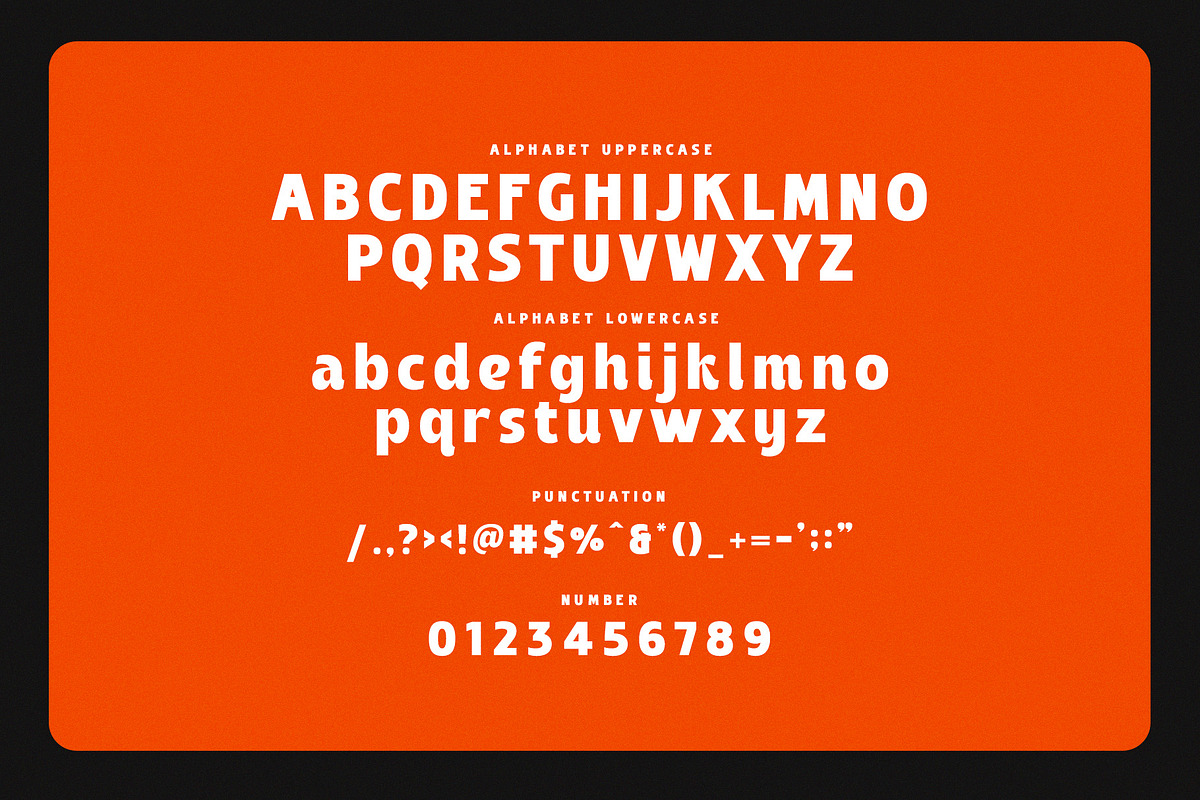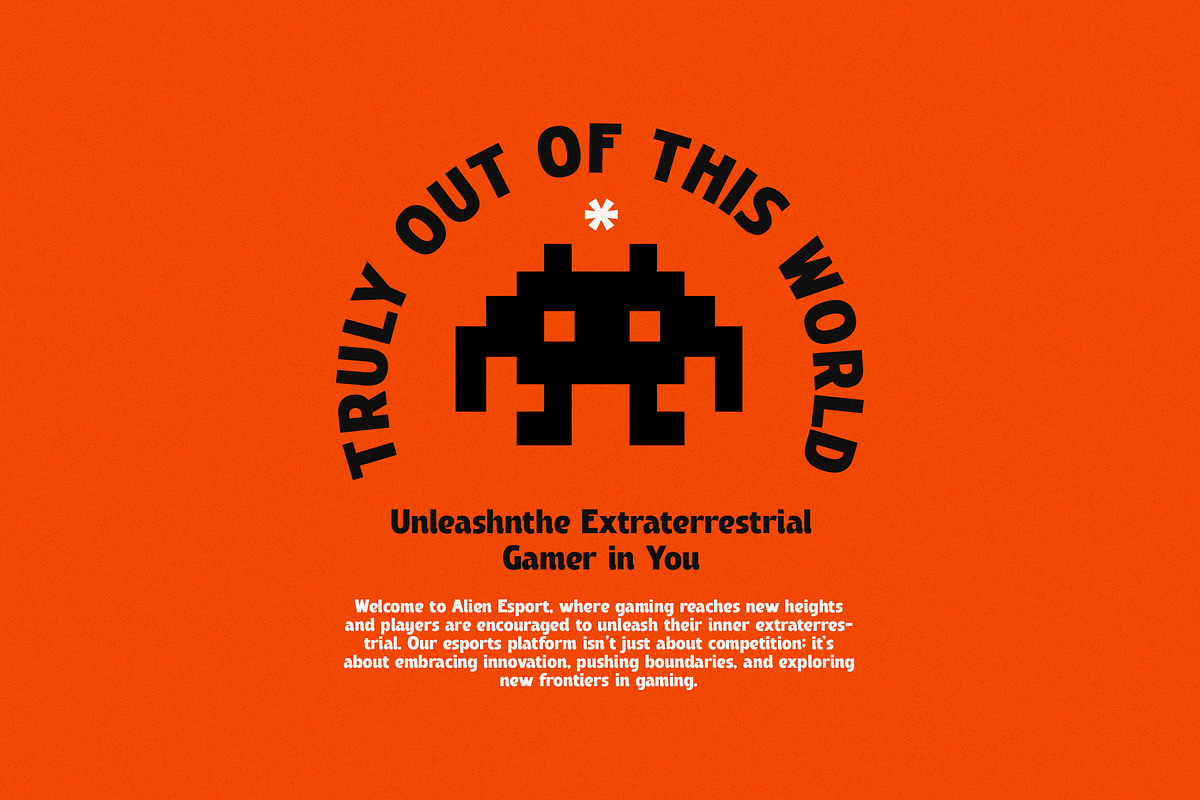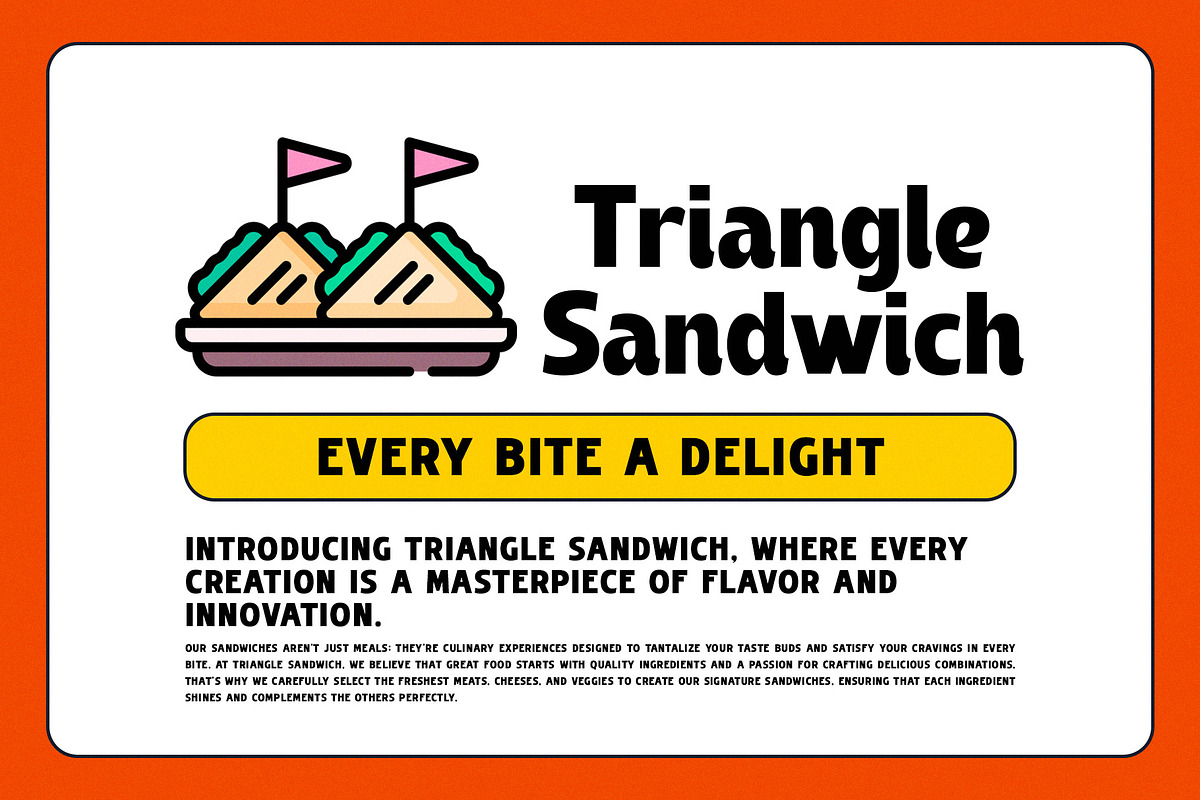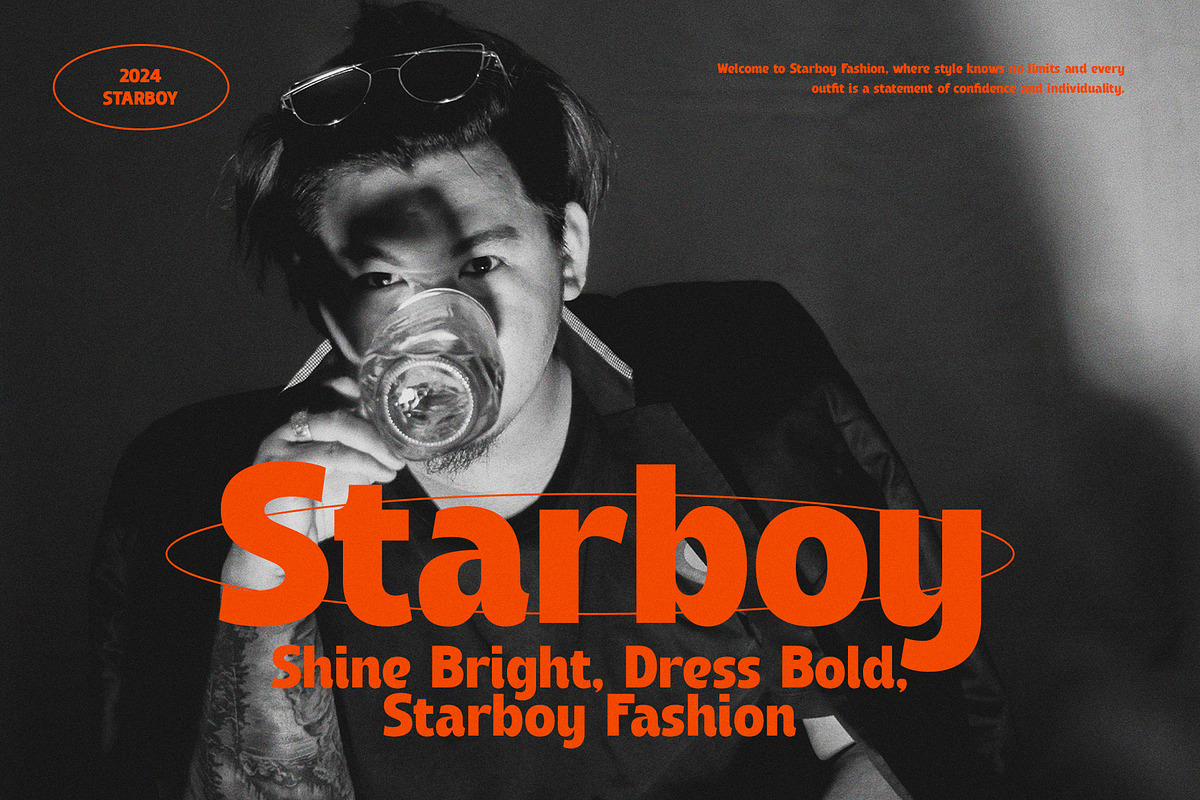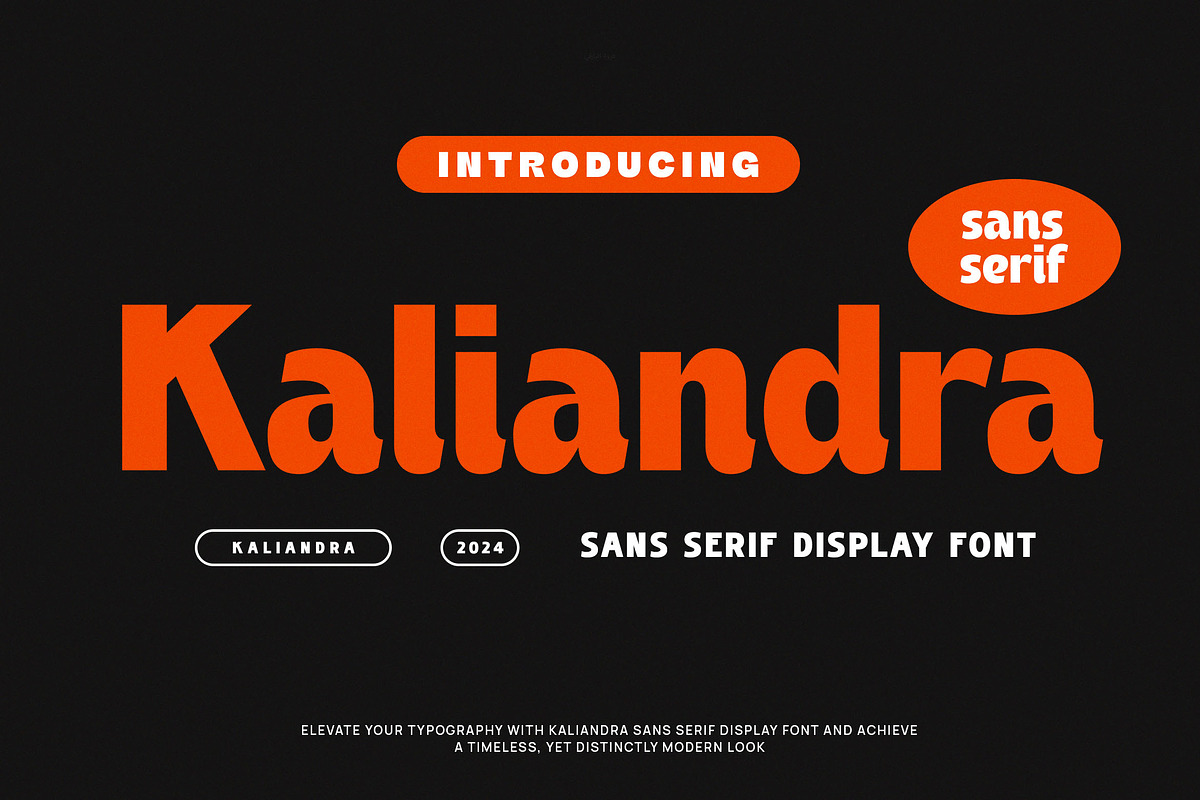
Kaliandra - Modern Display Sans Seri
Introducing Kaliandra - Modern Display Sans Serif. Kaliandra is a modern and simple font, best used as a display for headings, logos, branding, magazines, product packaging and invitations. Thank you.